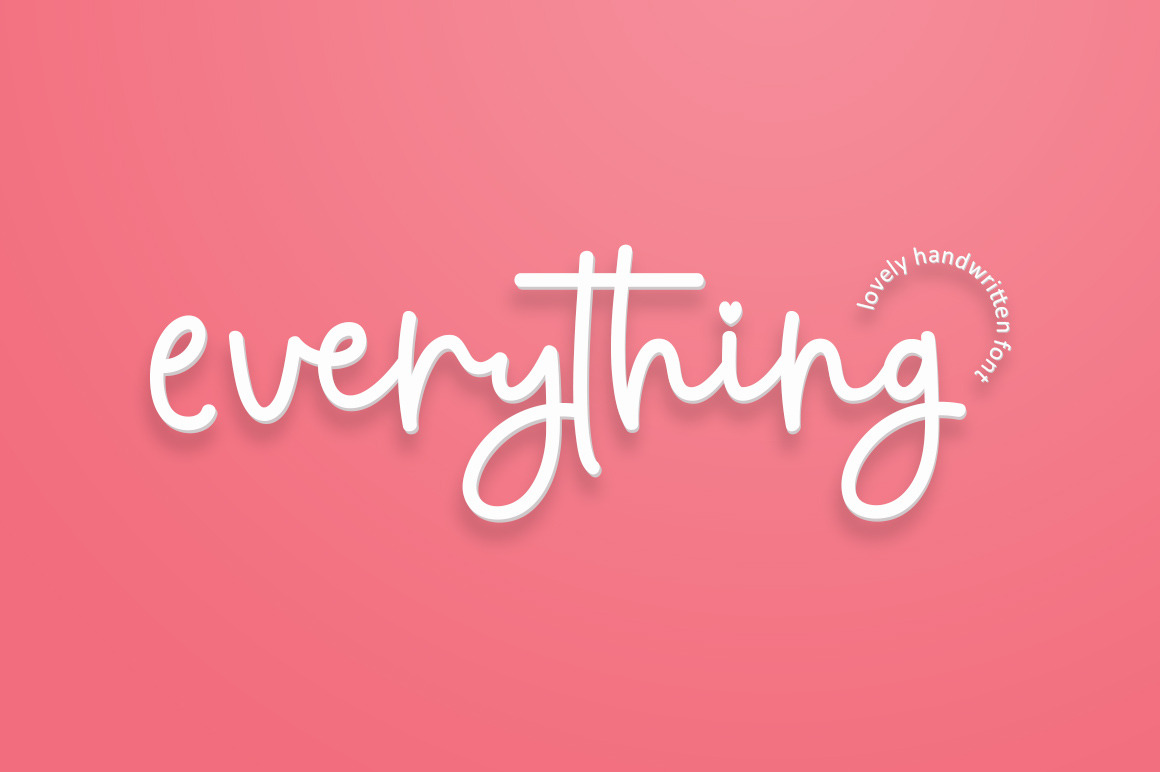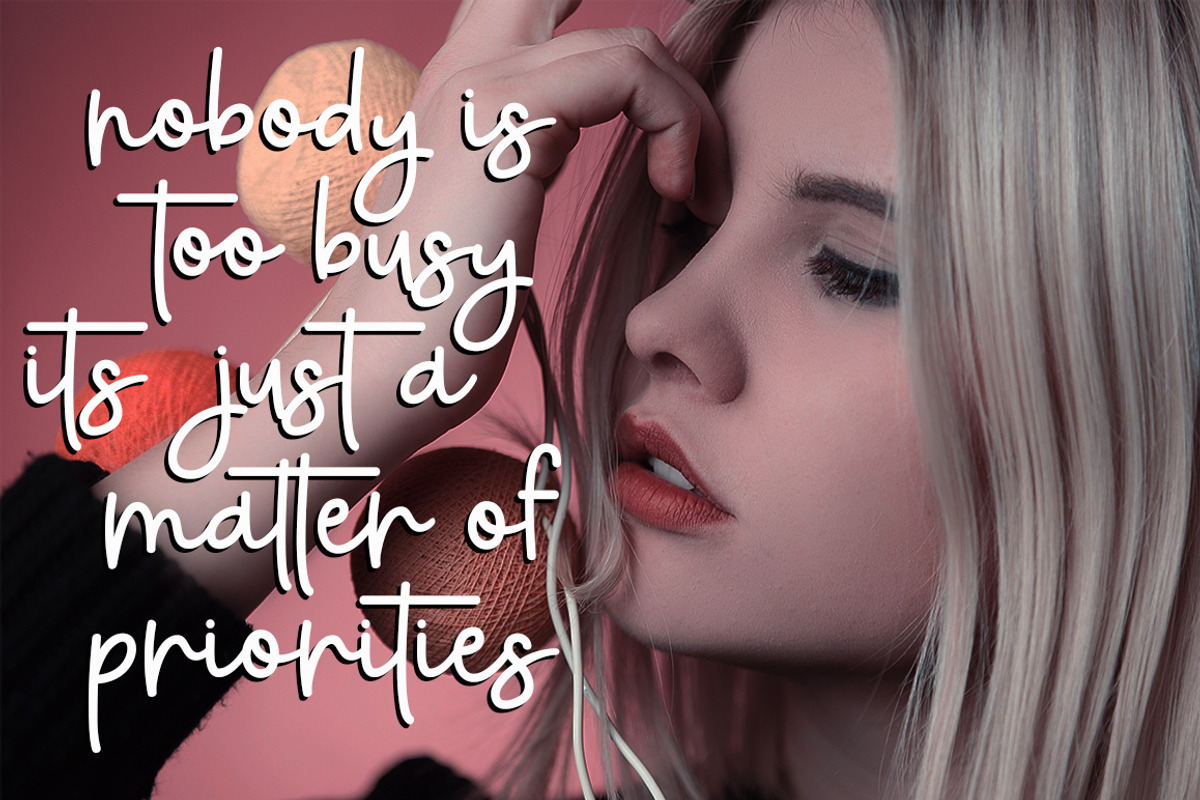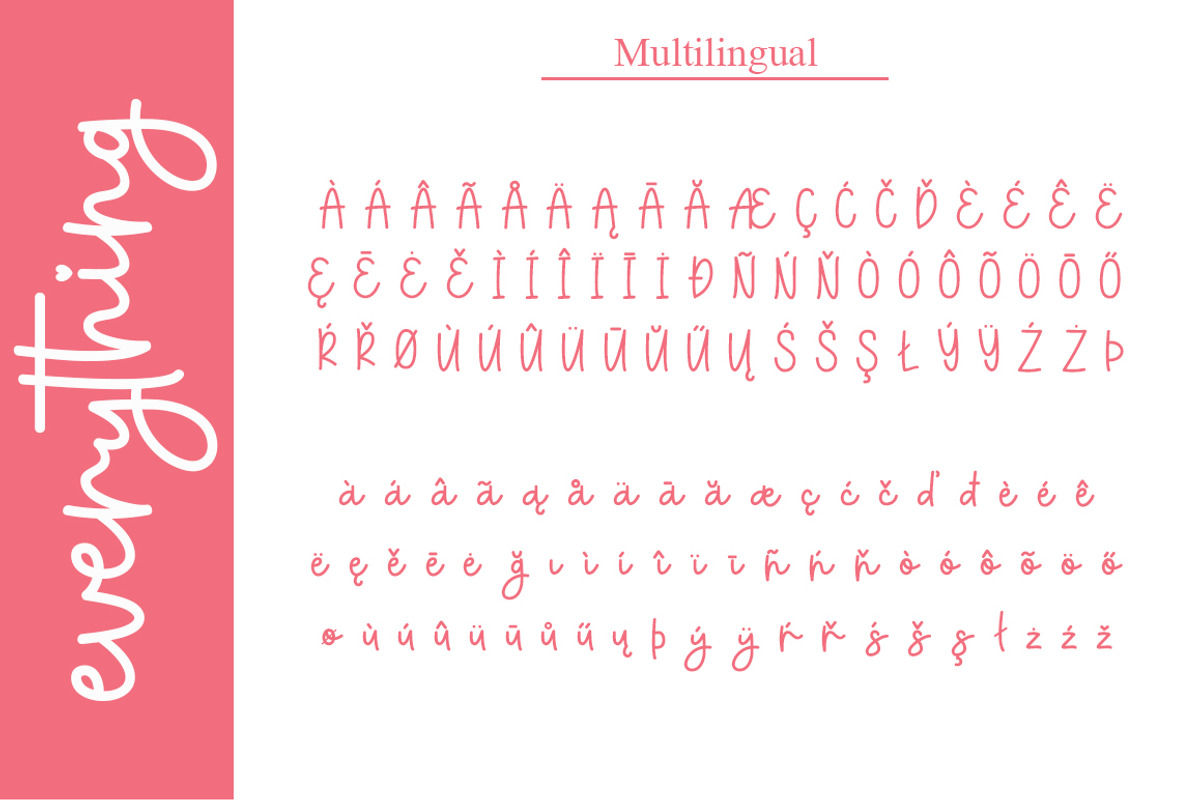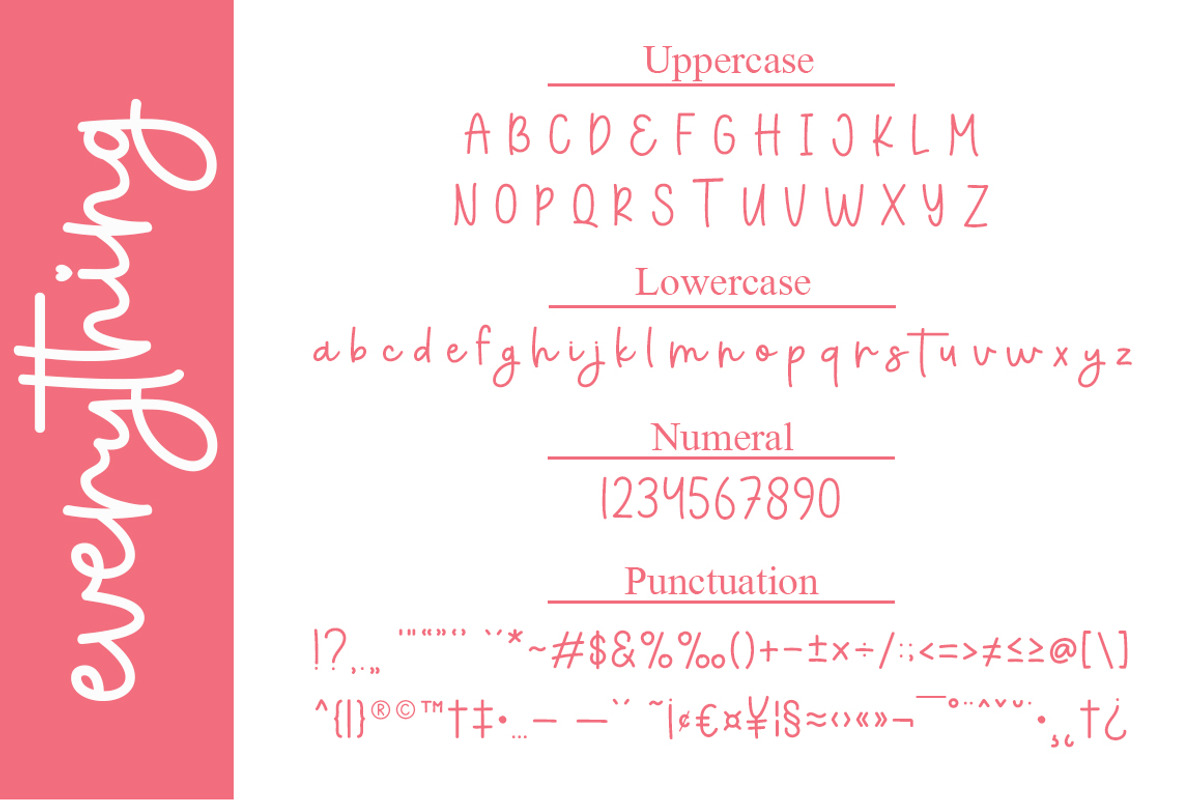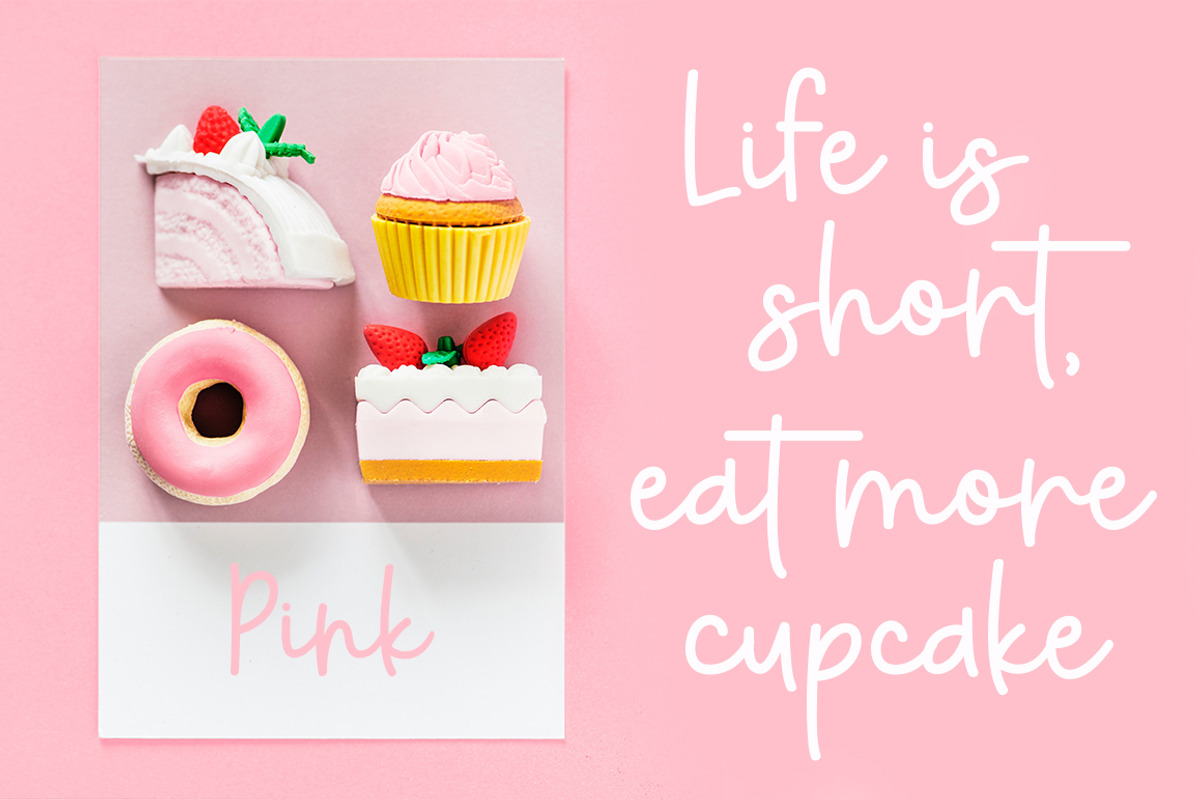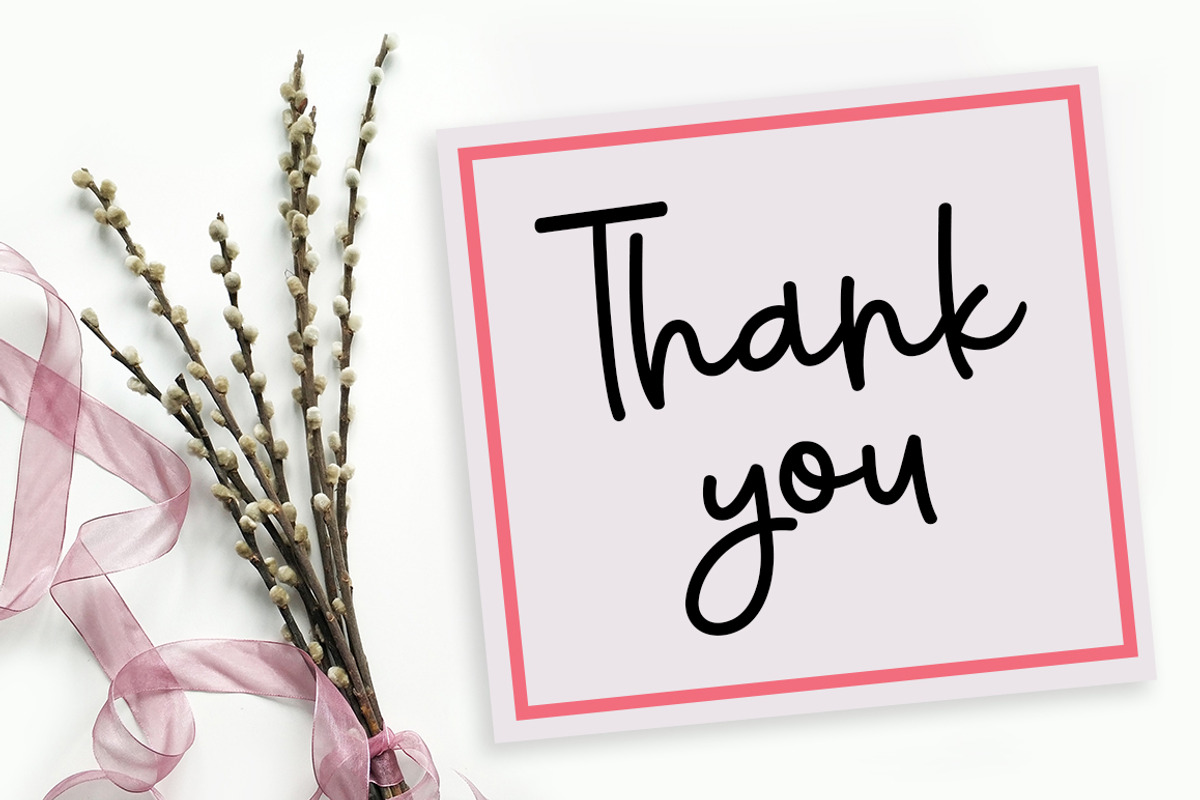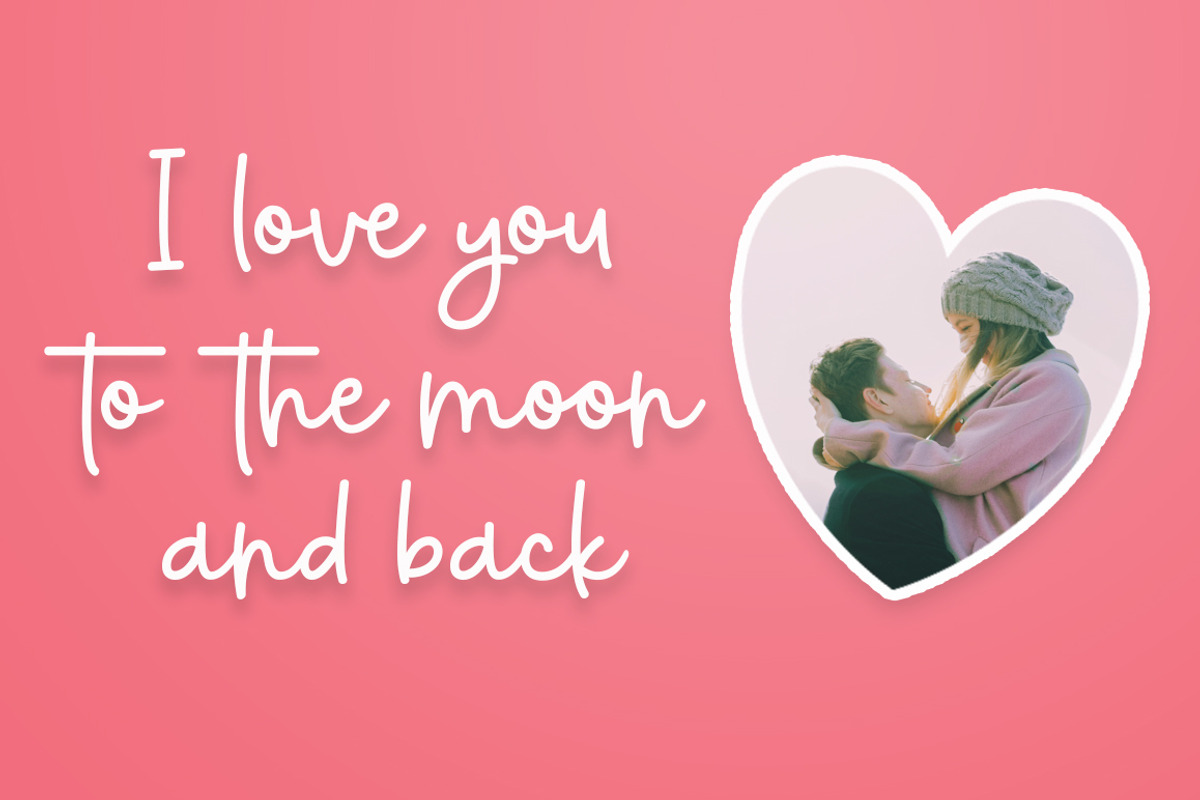
Everything Handwritten Font
The Everything Script is a modern handwritten font. This font allows you to create beautiful hand-made typography in an instant.